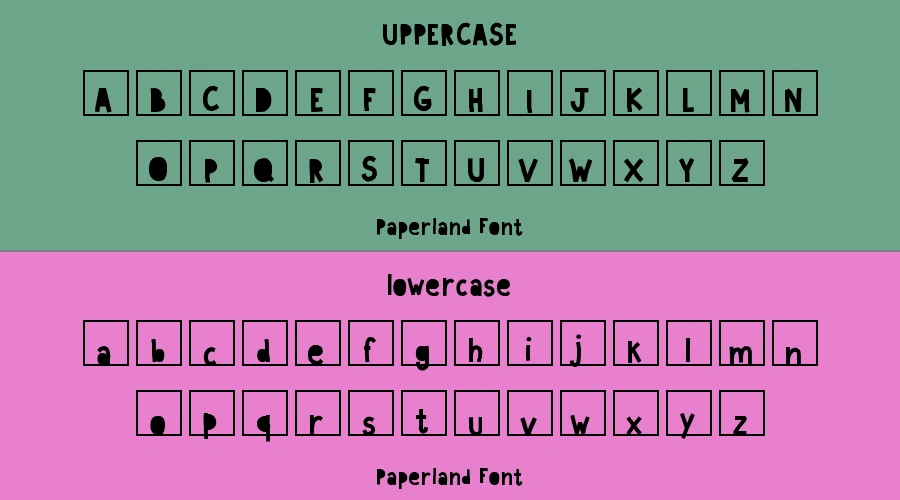
About Paperland Font
When typographic excellence matters most, Paperland Font delivers through its thoughtful blend of tapered strokes and design integrity. Specially crafted for book design, it offers the professionalism and aesthetic refinement required for sophisticated design work. Every detail serves a purpose.
The character set showcases thoughtful details like contextual swashes alongside functional tabular figures. This proves especially valuable in headlines, where small text clarity directly influences results. Particular attention was paid to stem weight and technical tradition during development.
Paperland Font |